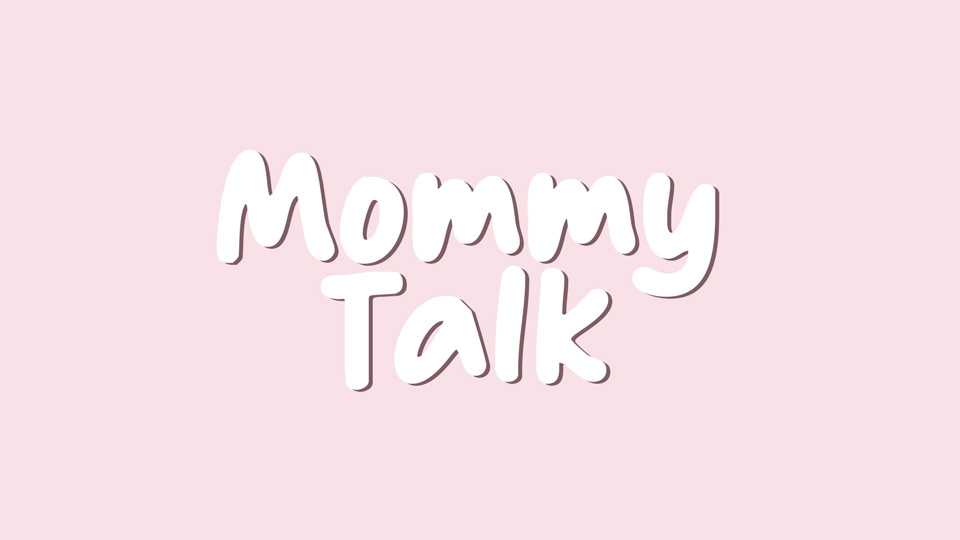
Download Mommy Talk font, a handwritten typeface with a simple and organic look. Mommy Talk font is perfect for adding a personal touch to any project, whether you’re writing a comic book, crafting a design, or jotting down some notes.